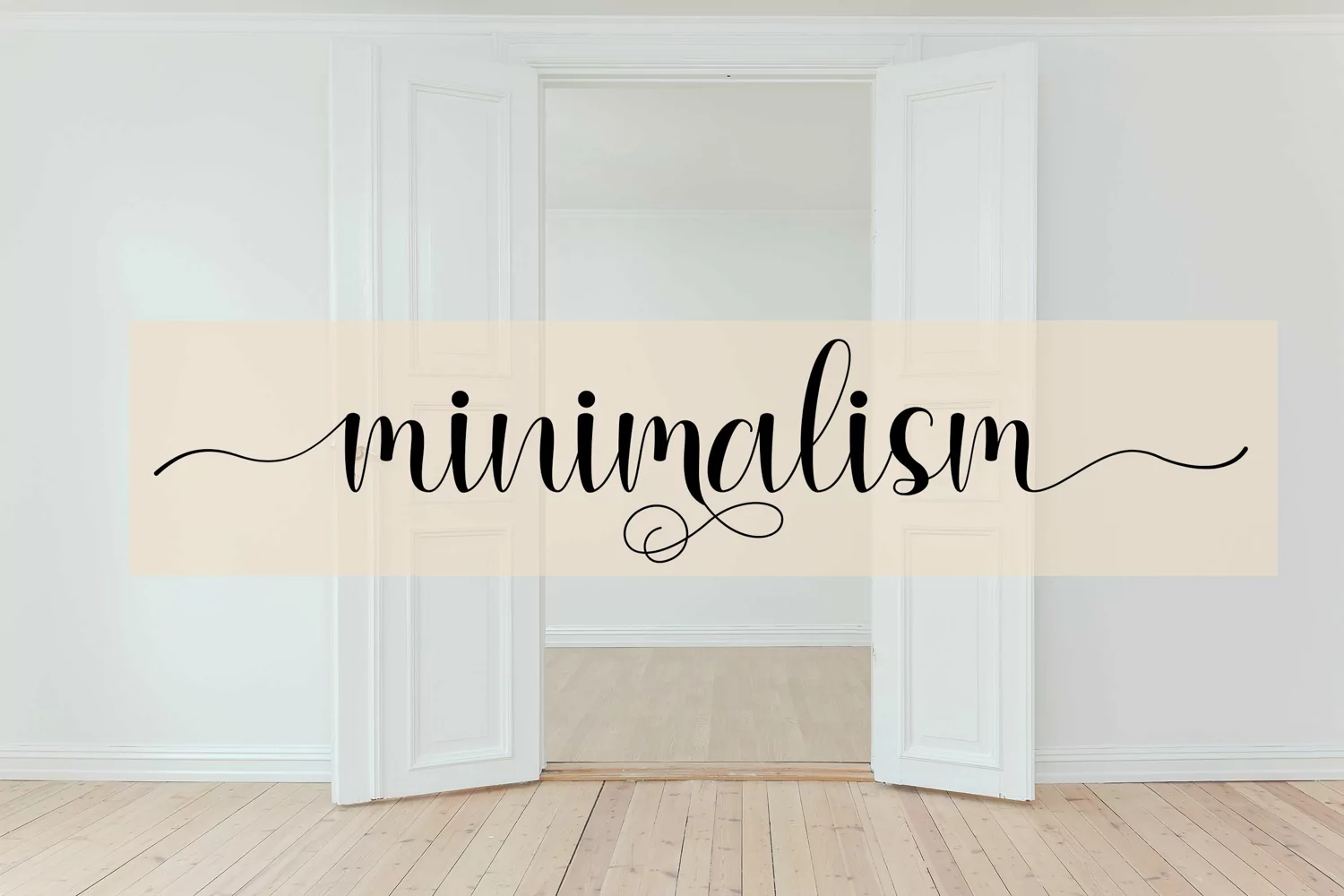
Introducing Mylovely Heart Script Font was built with OpenType features and includes begining and ending swashes, ,stylistic set 1-10, numbers, punctuation, alternates, ligatures and it also support other lengueages.
• Alternate Characters
• Uppercase and Lowercase letters
• Numbering and Punctuations